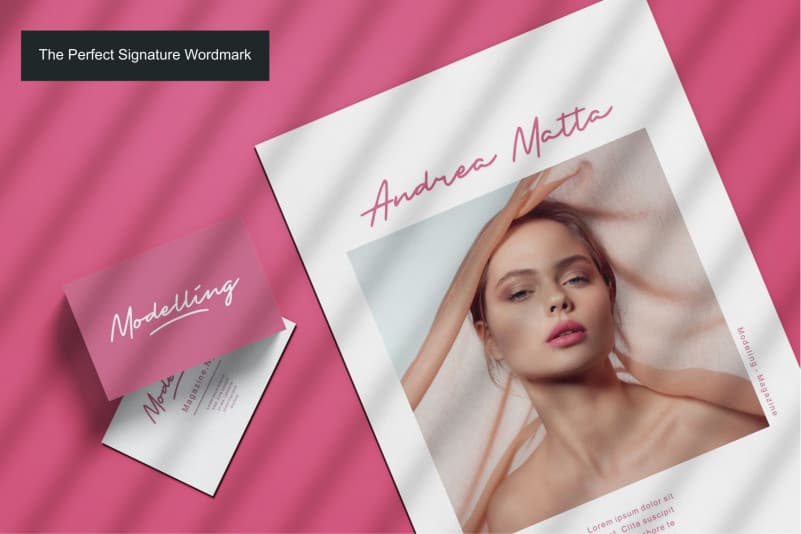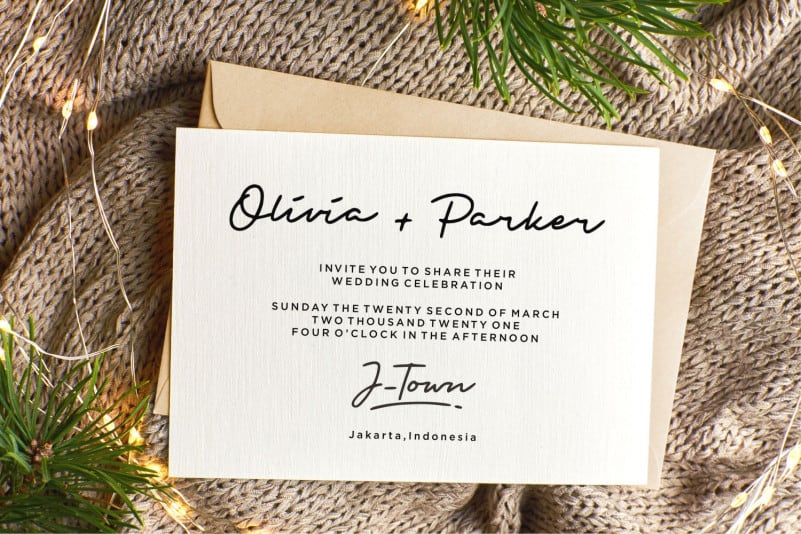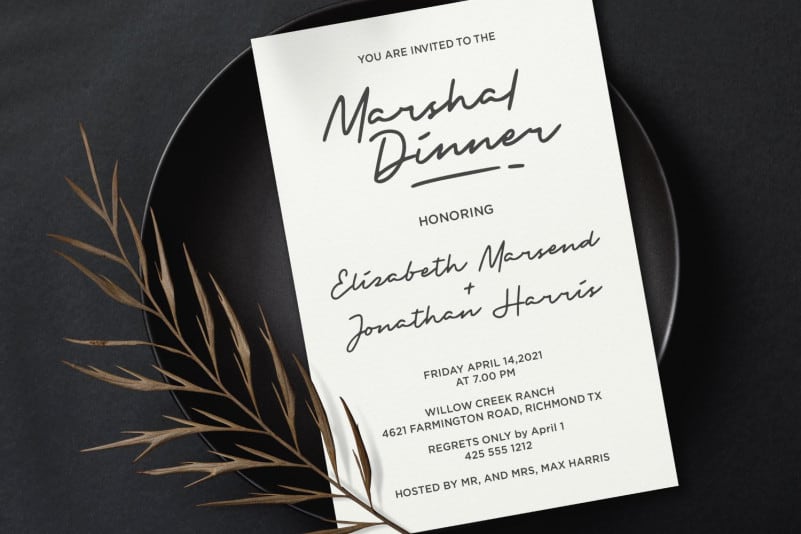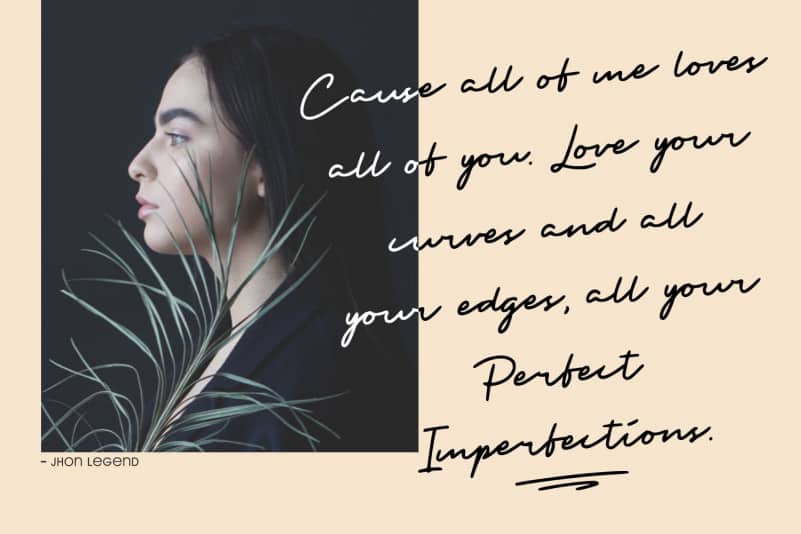
South Paris Handwritten Font
South Paris Handwritten Font is a Signature Font. South Paris is perfect for product packaging, branding project, megazine, social media, wedding, or just used to express words above the background. This font includes OTF&TTF, South Paris also multilingual support.